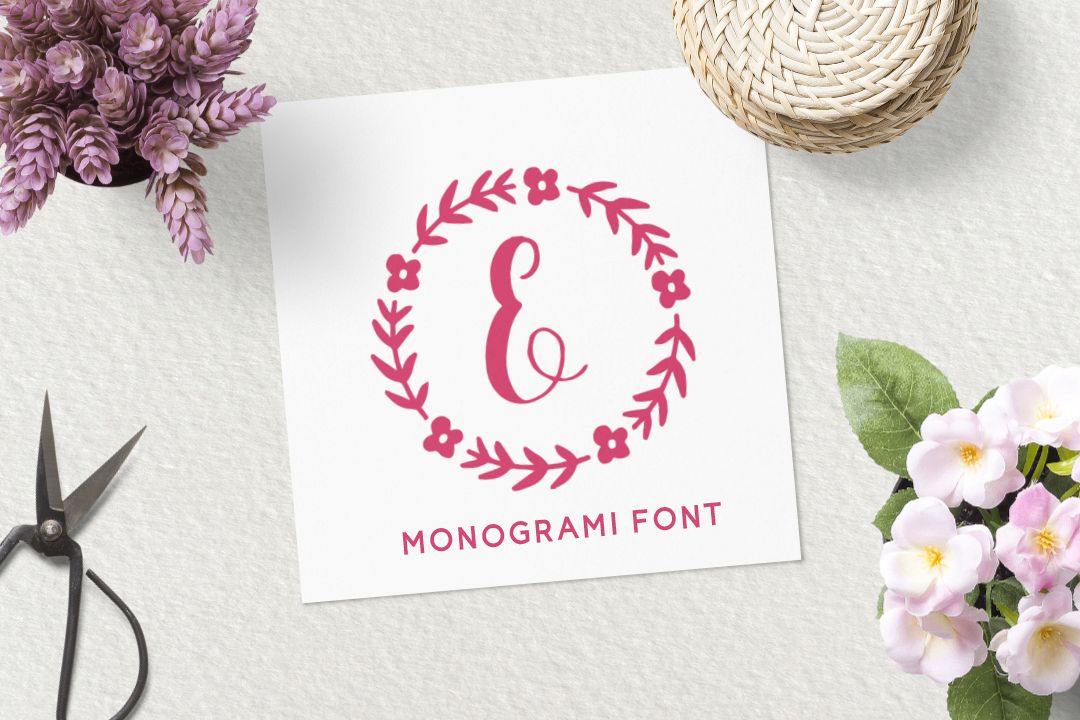
Sweet Monogram Floral
Introduce a new product from us. Sweet Monogram Floral. in this product there are 2 floral versions. including OTF and TTF. This monogram is perfect for printing on mugs, cards, or on your other products